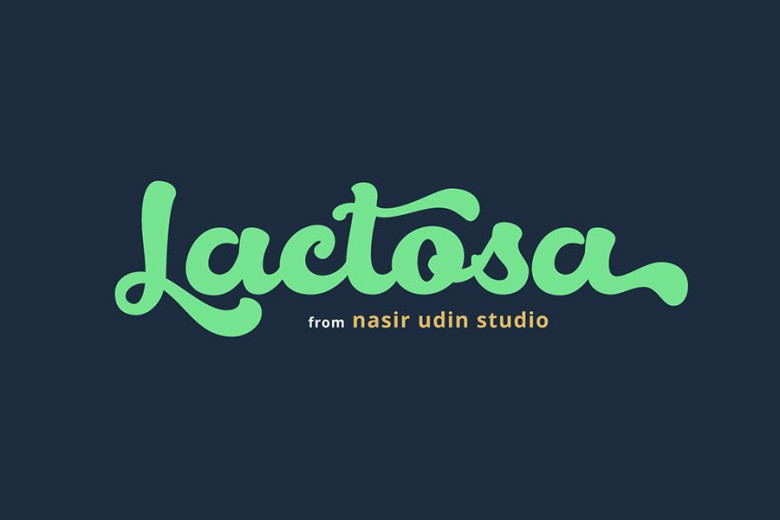
Lactosa Script Font
Lactosa – A sweet script font that is bold and fully of energy, and curvaceous. It is designed and shared by Nasir Udin. Lactosa comes to you with several alternate lowercase-letters for you to play with and the complete set of lowercase-letter swashes that make your word looks sweet and stand out. It has a fabulous selection of ligatures built in (consists of 60+ ligatures). It’s especially created for branding and product packaging typography, also perfect for poster, business cards, headline, restaurant menus, and much more.